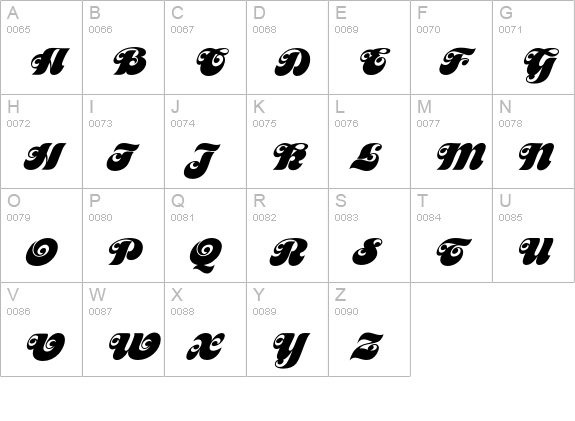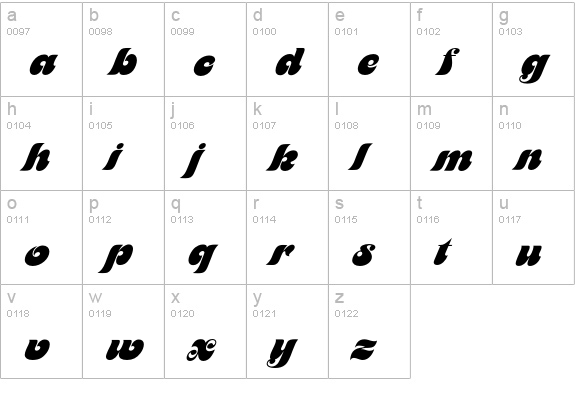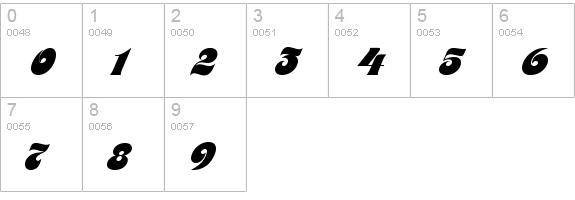
MotterFeminaEF Font Details
MotterFeminaEF is a stunning and elegant font that exudes sophistication and femininity. With its delicate curves and graceful letterforms, this font is perfect for adding a touch of charm and refinement to any design project. Whether you're creating wedding invitations, branding materials, or any other type of creative work, MotterFeminaEF is sure to make a lasting impression. What makes MotterFeminaEF even more appealing is that it is available for free download at FontsMarket.com. That's right - you can get your hands on this exquisite font without having to spend a dime. So why wait? Enhance your designs with the timeless beauty of MotterFeminaEF today.